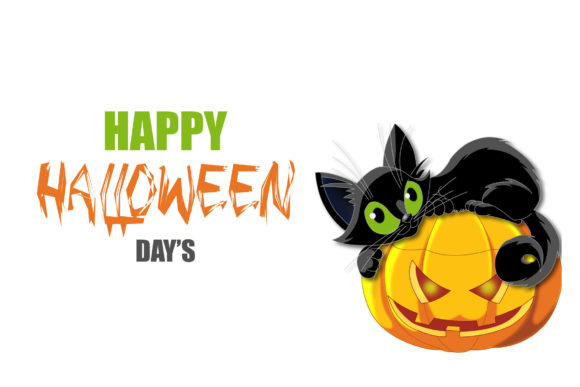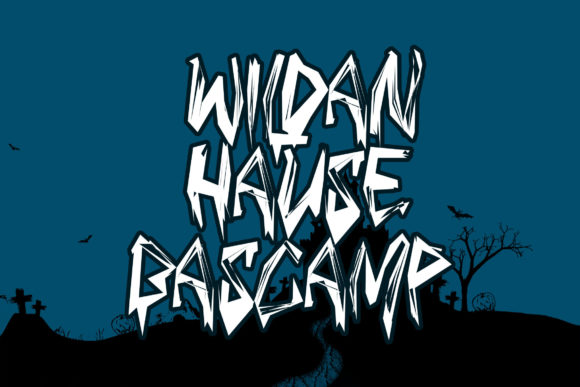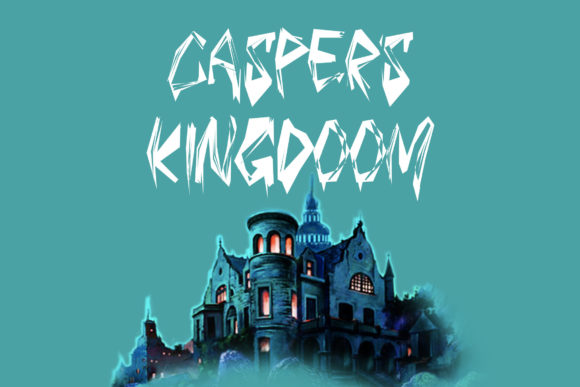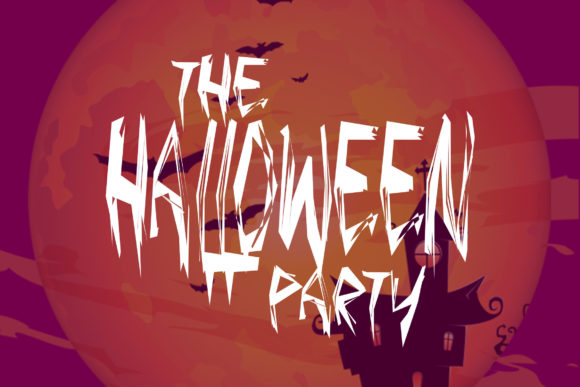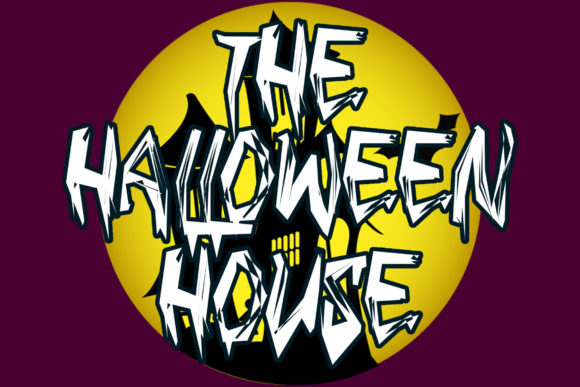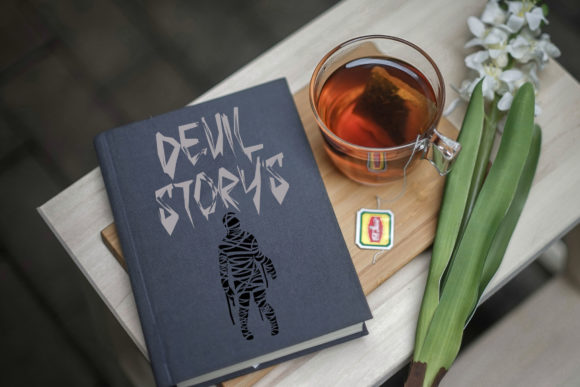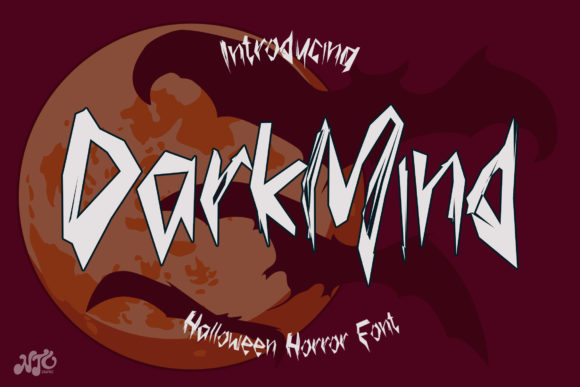
Unleash the Spookiness: Exploring the Dark Mind Font
As the witching hour approaches, designers and crafters are on the lookout for the perfect typography to add a touch of eeriness to their Halloween-related projects. Look no further than the Dark Mind Font, a creepy and dark looking display font that’s sure to send shivers down the spine. In this article, we’ll dive into the world of Dark Mind Font, exploring its features, uses, and the endless possibilities it offers for your crafty ideas.
The Dark Mind Font: A Creepy and Dark Display Font
Dark Mind Font is a display font designed to evoke a sense of eeriness and foreboding. Its dark and twisted aesthetic makes it the perfect choice for any project that requires a touch of the macabre. Whether you’re working on a Halloween-themed design, a horror-inspired craft, or simply want to add a bit of edge to your typography, Dark Mind Font is the perfect choice.
Perfect for Halloween-Related Projects
Halloween is just around the corner, and with it comes a plethora of design opportunities. From spooky invitations to creepy decorations, Dark Mind Font is the perfect addition to any Halloween-related project. Use it to create:
• Spooky party invitations that set the tone for a haunted celebration
• Eerie tombstones and grave markers for a haunted house or graveyard display
• Creepy candy labels and packaging for a haunted treat
• Haunting posters and flyers for a spooky movie night or Halloween event
Beyond Halloween: Endless Possibilities for Crafty Ideas
While Dark Mind Font is perfectly suited for Halloween-related projects, its versatility extends far beyond the spookiest of holidays. Use it to add a touch of edginess to:
• Gothic-inspired fashion designs and accessories
• Creepy crafts, such as witchy spellbooks and haunted house decorations
• Dark and moody photography and film projects
• Occult and mystical-themed designs and artwork
Key Features of Dark Mind Font
So, what makes Dark Mind Font so special? Here are just a few of its key features:
• Creepy and distressed texture: Giving your text a worn and weathered look
• Dark and twisted aesthetic: Perfect for adding a touch of horror and suspense to your designs
• High-quality and scalable: Suitable for use in a variety of design applications, from print to digital
Tips and Tricks for Using Dark Mind Font
To get the most out of Dark Mind Font, here are a few tips and tricks to keep in mind:
• Experiment with different colors: From blood reds and blacks to eerie greens and purples, the right color can enhance the creepy effect of Dark Mind Font
• Combine with other fonts: Pair Dark Mind Font with a more traditional font for a striking contrast
• Play with texture and effects: Add an extra layer of creepiness with texture and effects, such as glow or shadow effects
Dark Mind Font is a creepy and dark looking display font that’s perfect for adding a touch of horror and suspense to your designs. With its distressed texture, twisted aesthetic, and high-quality design, it’s the perfect choice for any Halloween-related project or crafty idea. So, don’t be afraid to unleash your creativity and let your imagination run wild with Dark Mind Font. The only limit is your imagination!